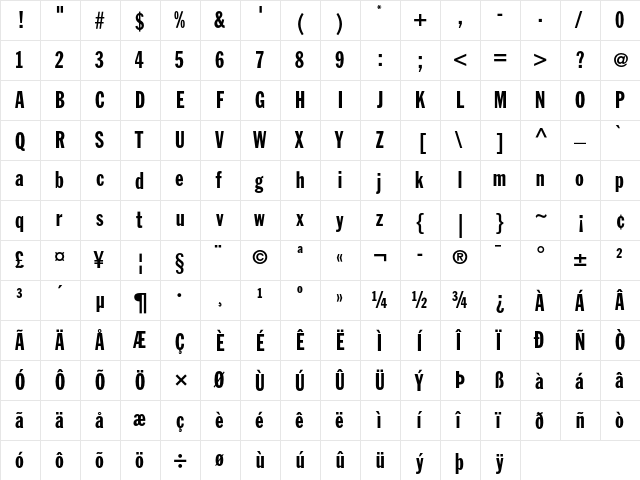
Franklin Gothic Extra Condensed Font Preview
Franklin Gothic Extra Condensed
Franklin Gothic Extra Condensed Font Details
| Style | Extra Condensed |
Design Context for Franklin Gothic Typeface
Franklin Gothic has the quiet confidence of well-executed sans-serif typography: versatile, unobtrusive, and dependable at any size. Its narrow stance lets it pack a punch even in space-constrained designs.